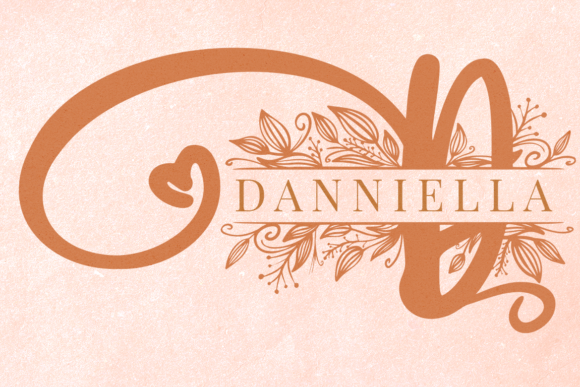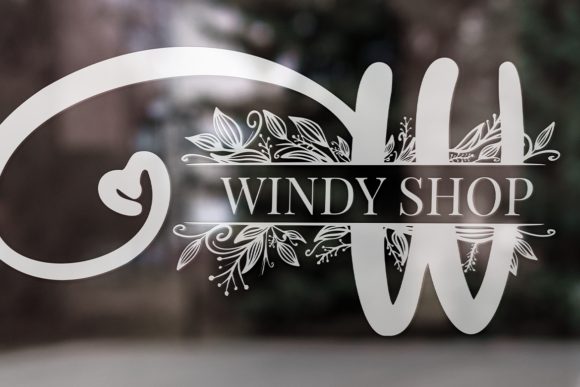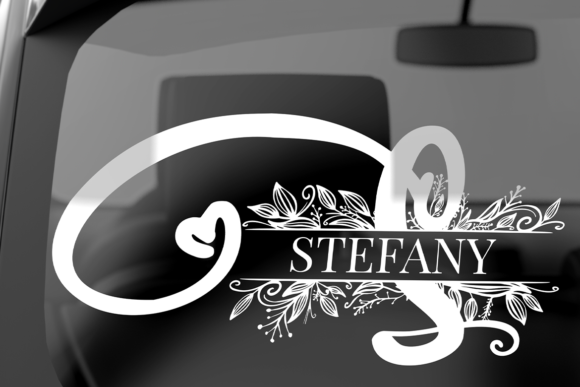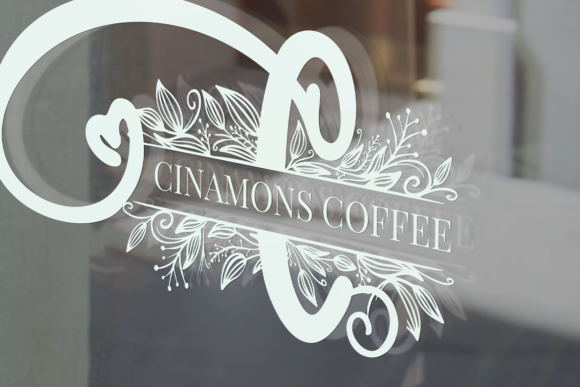
Love Eberline Monogram Font Font
About the Love Eberline Monogram Font Font
Get ready to be inspired by Love Eberline Monogram Font Font, a fresh and dynamic typeface for modern creators. Love Eberline Monogram is an incredibly unique and festive decorative font. Fall in love with its authentic feel and use it to create gorgeous wedding invitations, beautiful stationary art, eye-catching social media posts, and cute greeting cards.
Its playful, decorative style makes it ideal for headlines, short text blocks on invitations or social media graphics, and branding elements requiring a touch of vintage charm. Avoid using it for body copy or lengthy paragraphs; its ornate details would hinder readability. Consider pairing it with a clean sans-serif like Montserrat for a modern contrast, or a classic serif such as Garamond for a more traditional feel.
Love Eberline Monogram’s personality is undeniably festive and romantic. It’s best suited for brands and projects focused on events, celebrations, or products with a handmade or artisanal quality. Think wedding stationery, boutique businesses, or artisanal food packaging.
The font’s decorative nature might clash with minimalist designs; a more balanced approach is crucial for effective visual communication.
Love Eberline Monogram Font Font Usage Examples
Love Eberline Monogram Font Font Example